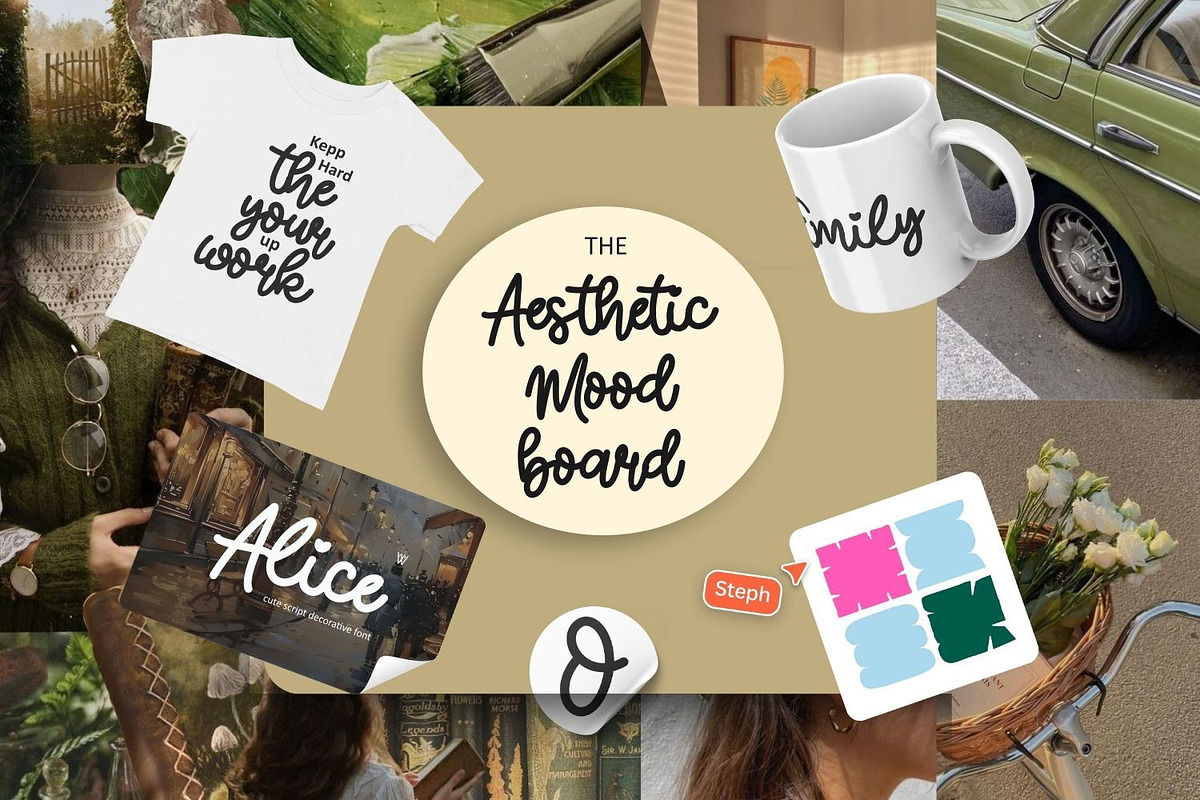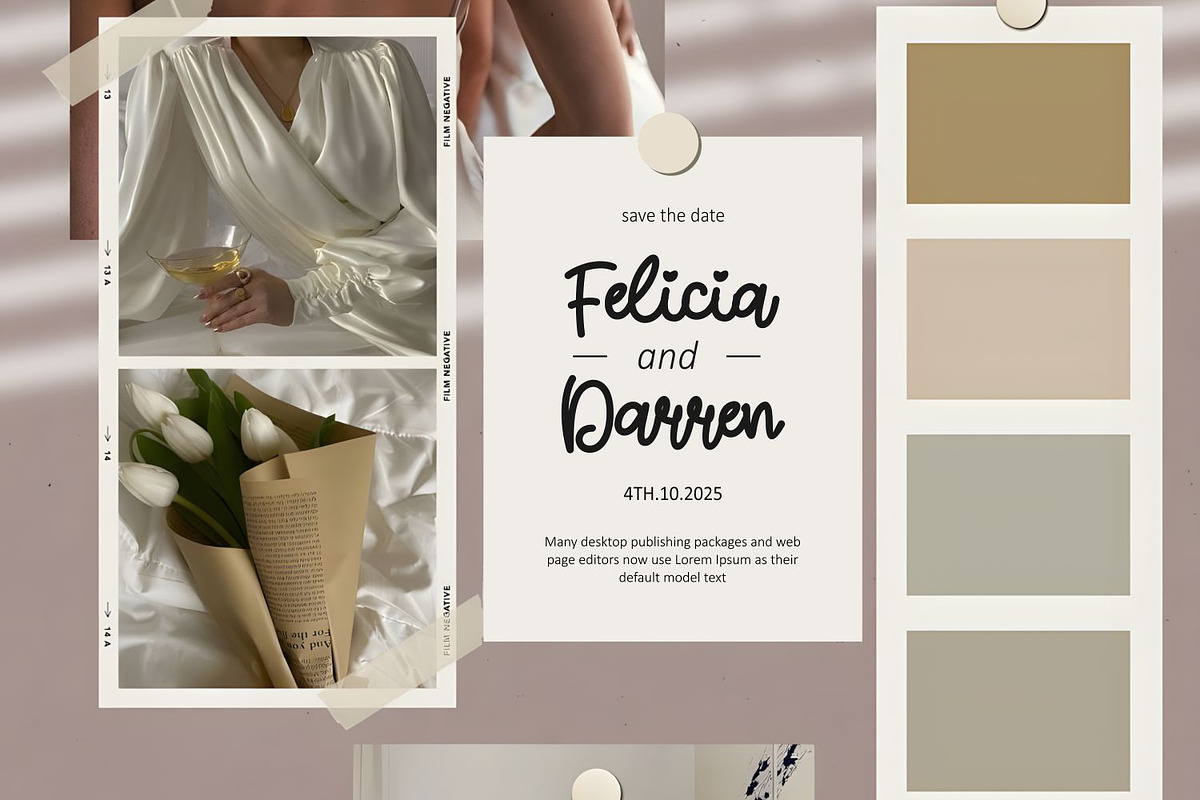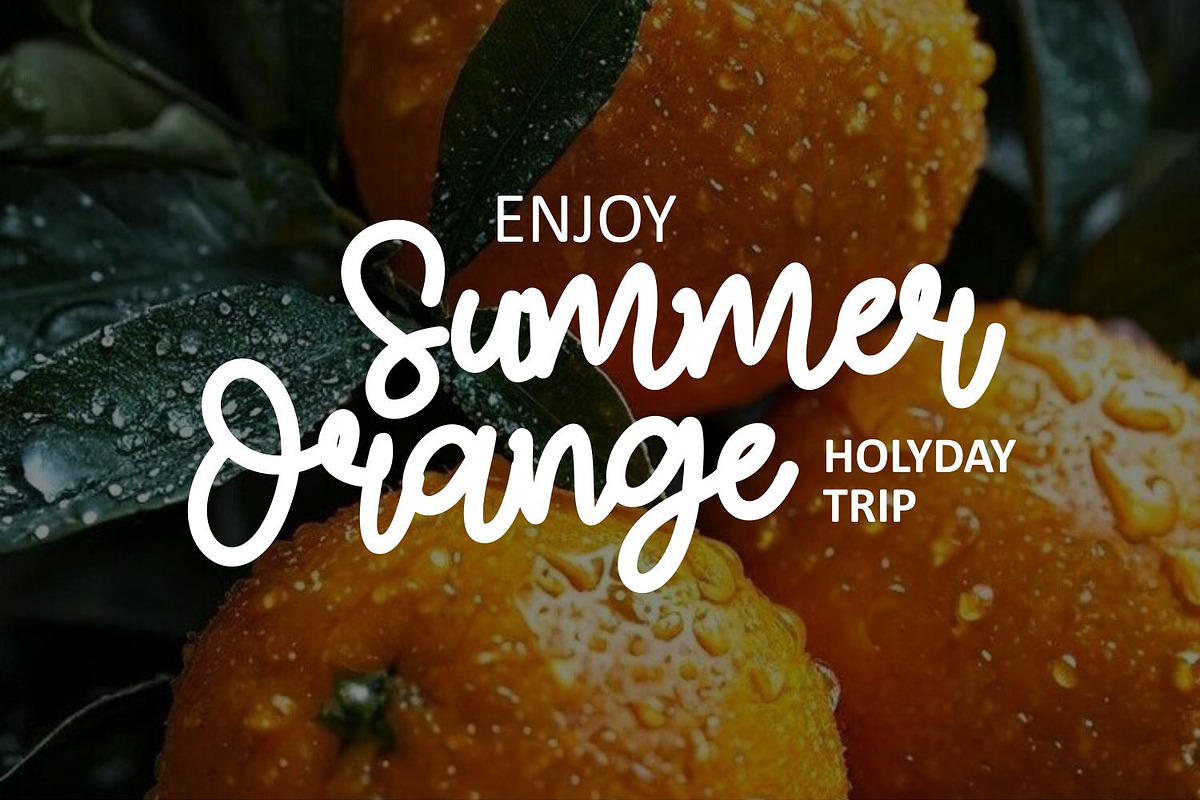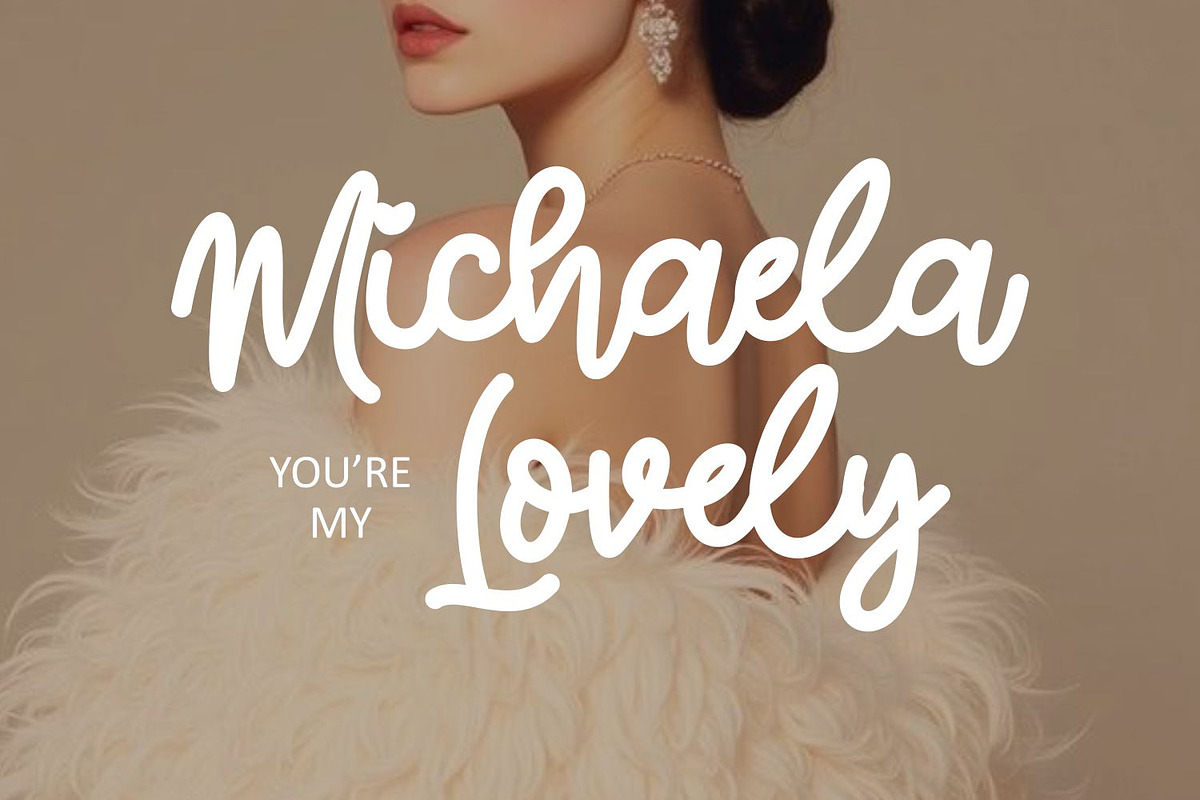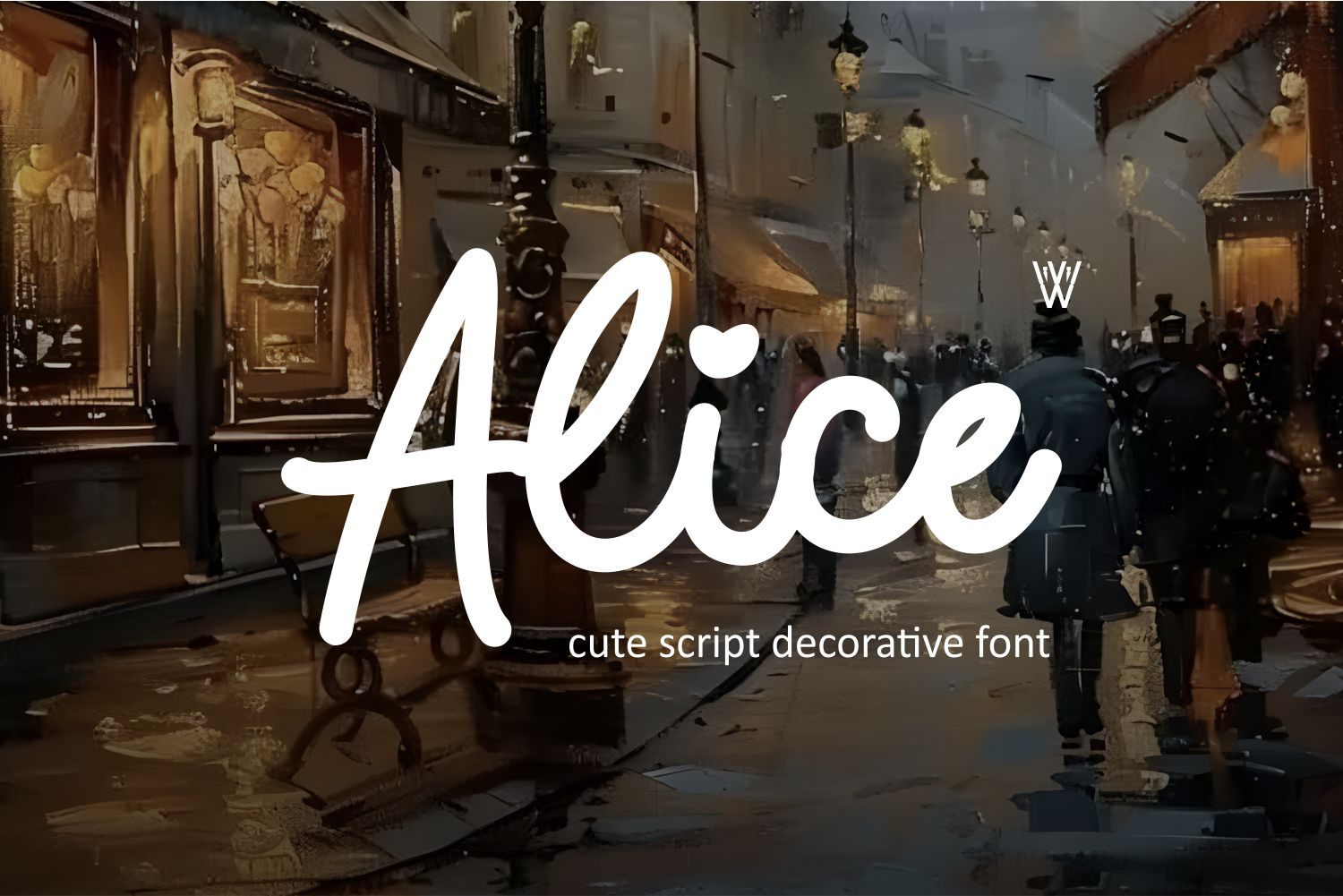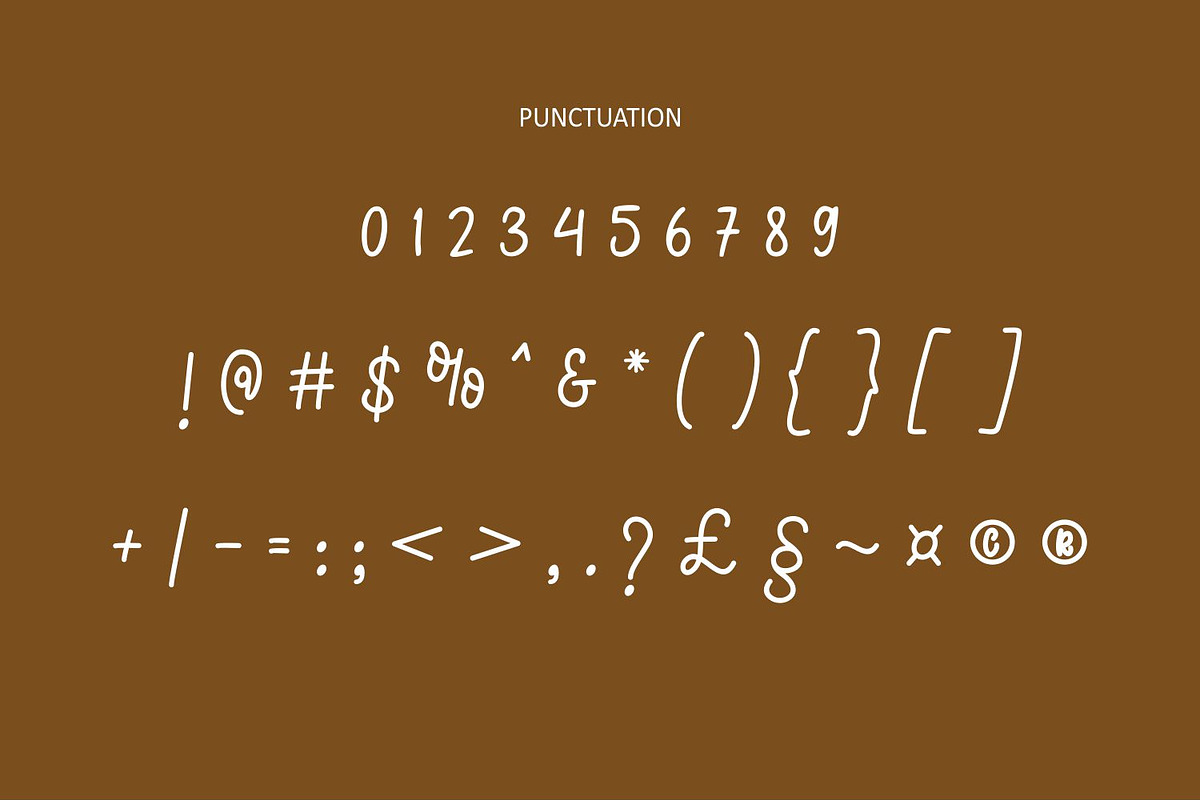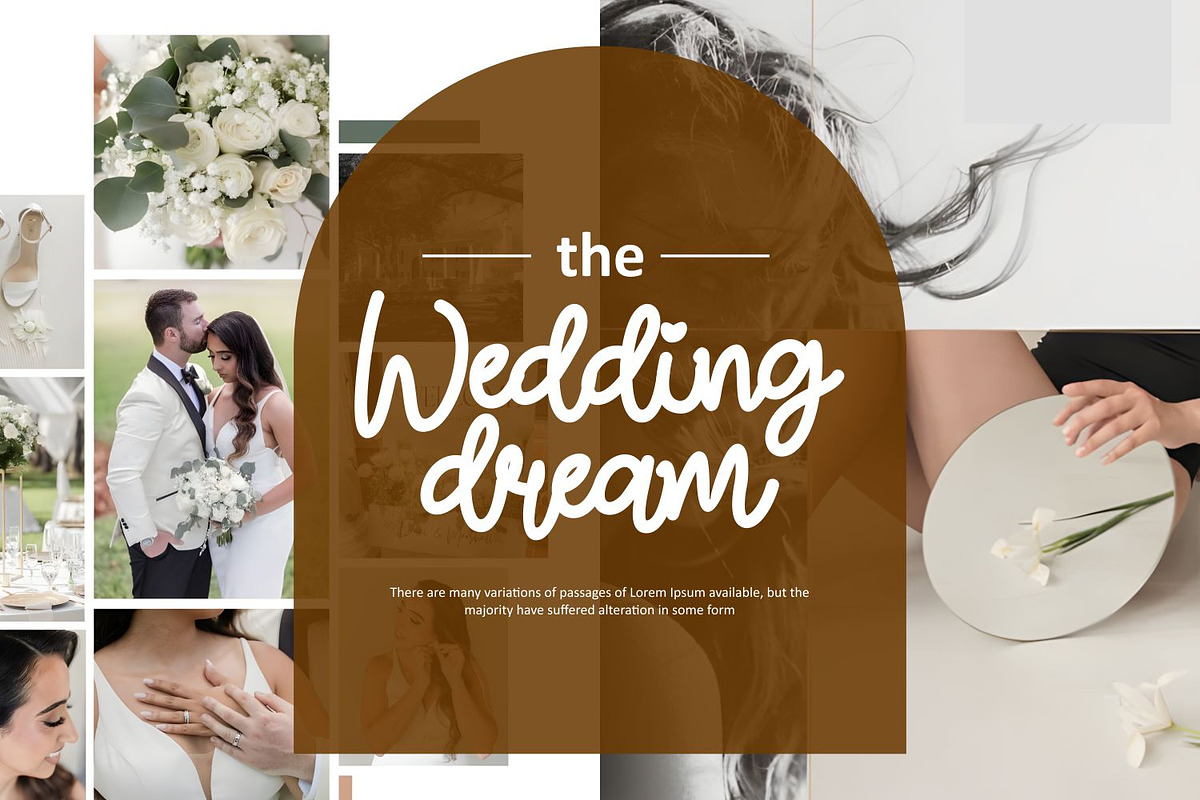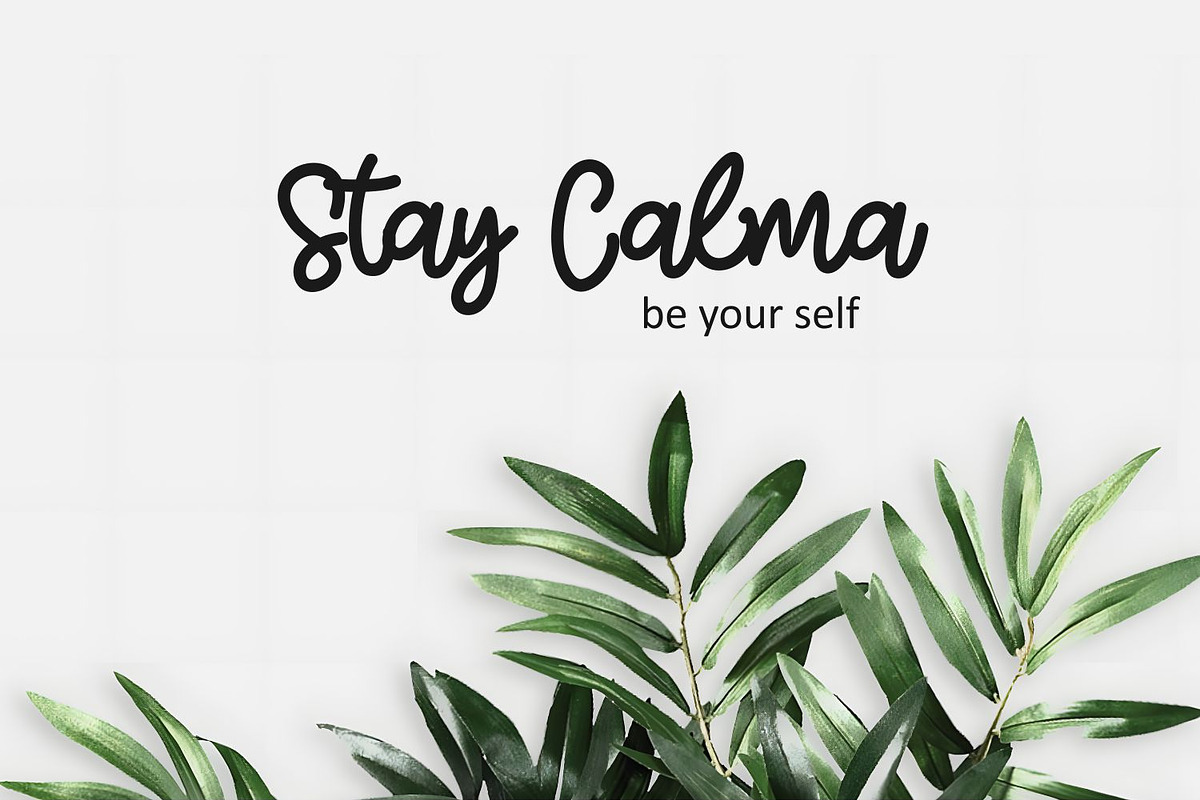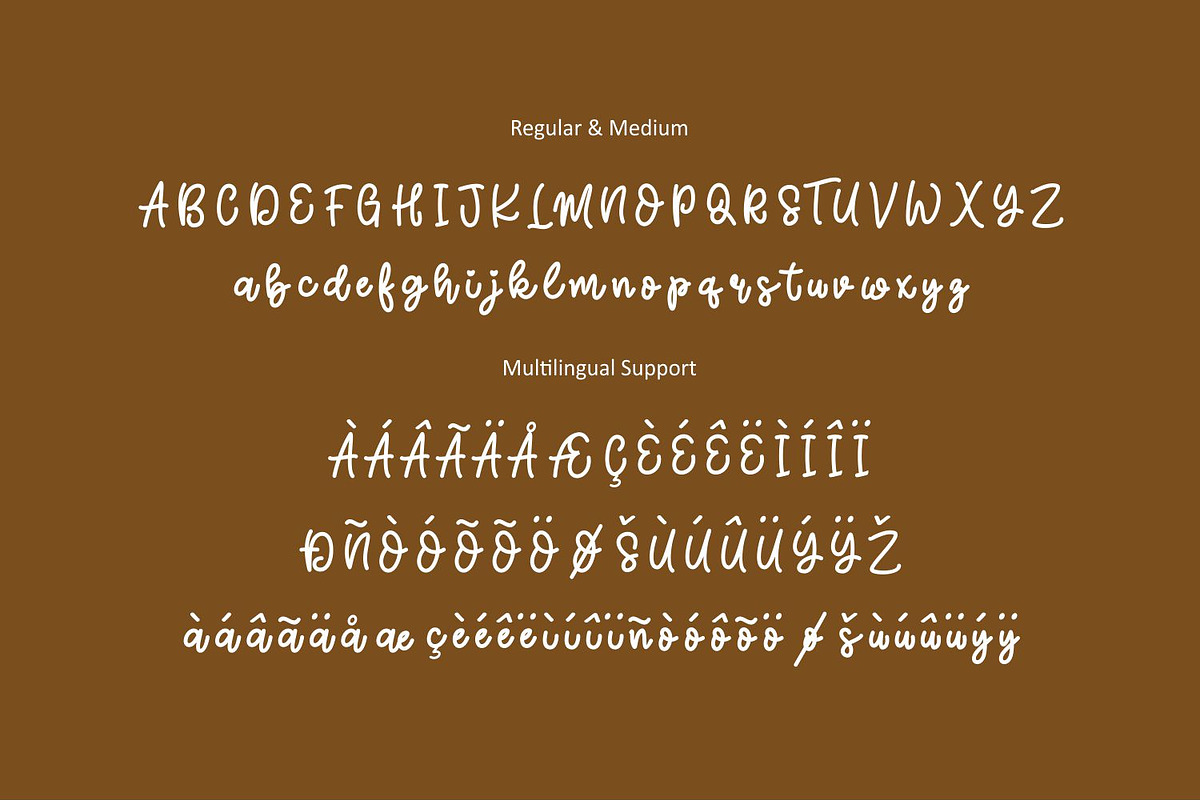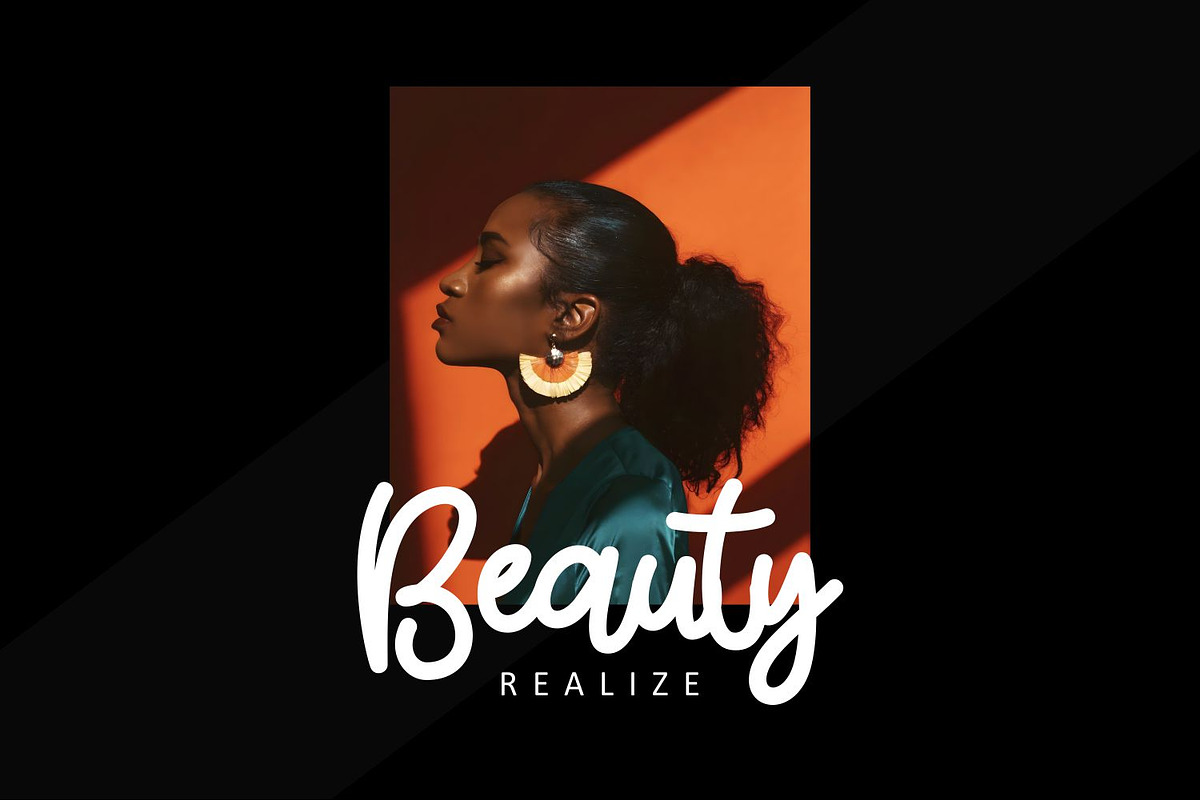
Alice Monoline Font – Cute Script
Alice Decorative Monoline Font is a charming script typeface designed to capture warmth, femininity, and sophistication. With smooth monoline strokes and playful curves, Alice delivers a perfect balance between elegance and cuteness — making it ideal for designers seeking to add personality and heart to their work.
This font is your go-to choice for branding, logos, wedding invitations, packaging, social media posts, and magazine editorials that need a soft yet professional aesthetic. Each letter flows seamlessly, creating a handcrafted feel that remains clean and readable across all design sizes.
Alice isn’t just a font — it’s a design statement. It represents the modern feminine trend that blends luxury with authenticity — a look that stands out in 2025’s visual landscape.
Wedding Invitations & Save the Dates Logo & Branding Projects Beauty & Lifestyle Packaging Social Media Design (Instagram, Pinterest, etc.) Editorial Layouts & Fashion Magazines
Decorative monoline script style Smooth ligatures & natural flow Perfectly balanced cute & elegant vibe Works beautifully in both print and digital use